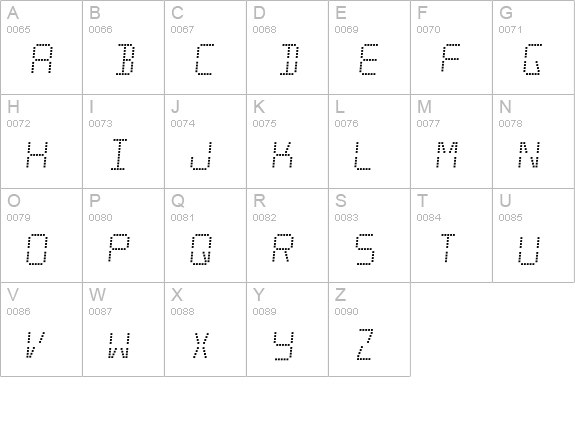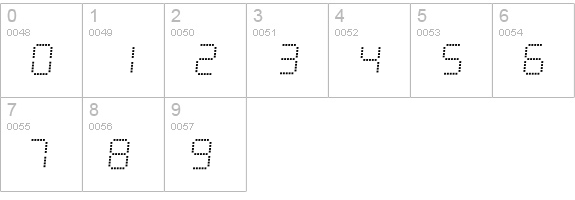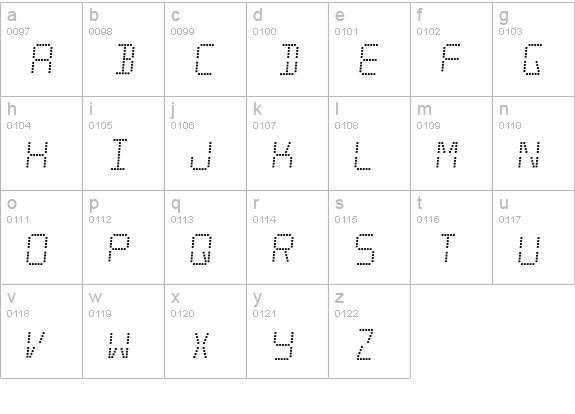
Minisystem Font Details
Minisystem font is a sleek and modern typeface that exudes sophistication and style. With its clean lines and contemporary aesthetic, this font is perfect for a wide range of design projects, from branding to editorial design. The geometric shapes and sharp edges give Minisystem a futuristic feel, making it ideal for projects that require a cutting-edge look. What sets Minisystem font apart is that it is not only visually striking but also free to download. Yes, you read that right - this high-quality font can be yours at no cost! Simply head over to FontsMarket.com to access this incredible typeface and elevate your design work to new heights. Don't miss out on the opportunity to enhance your projects with the modern elegance of Minisystem font.